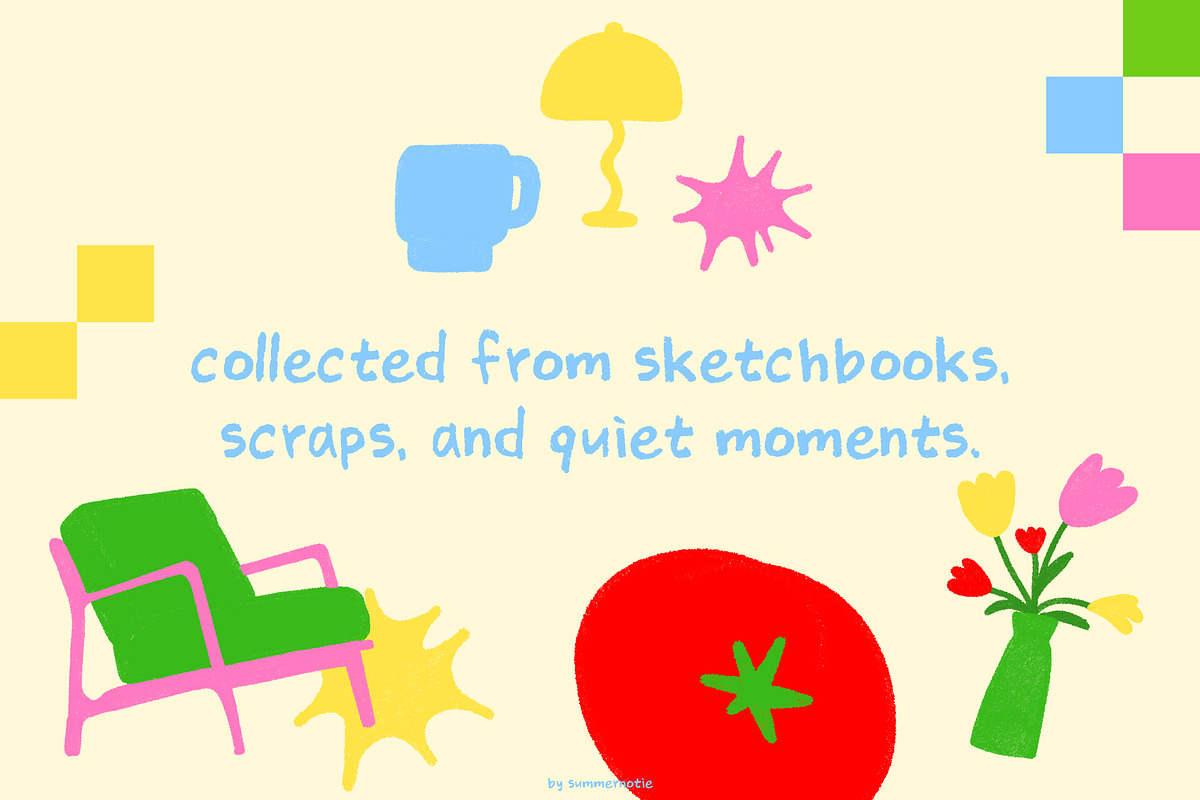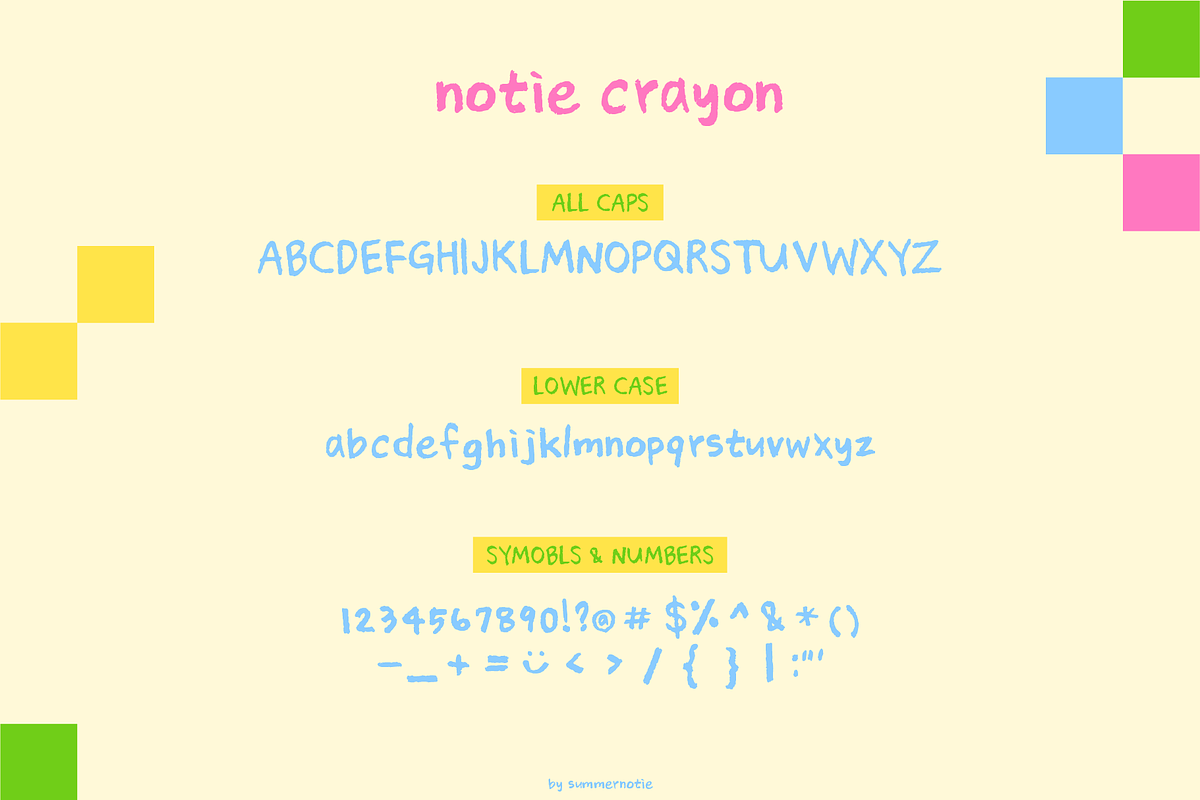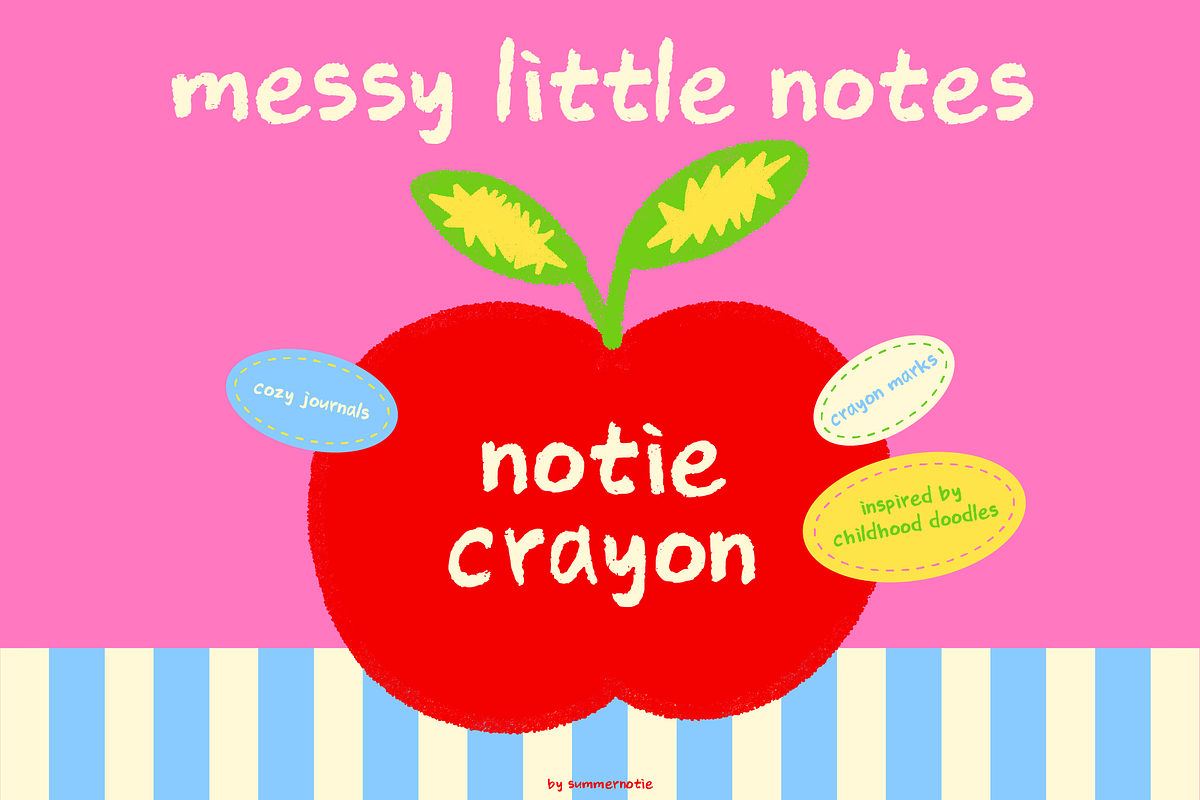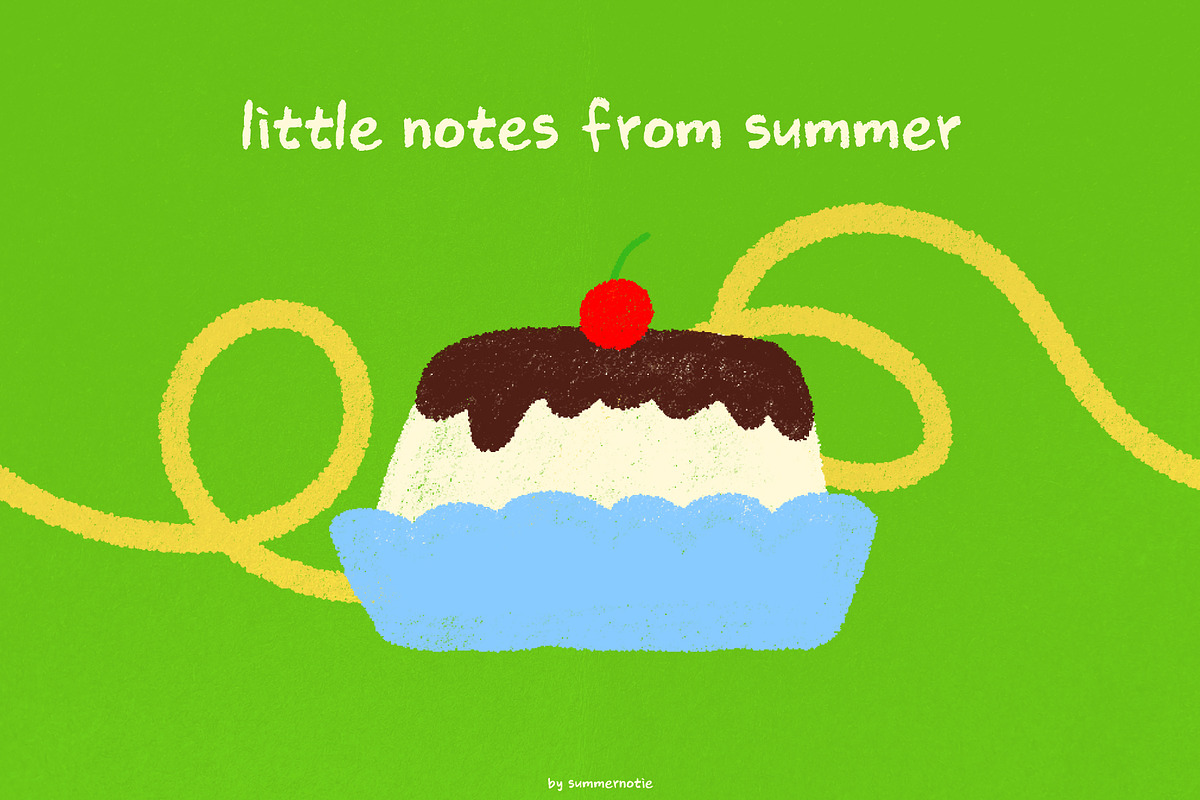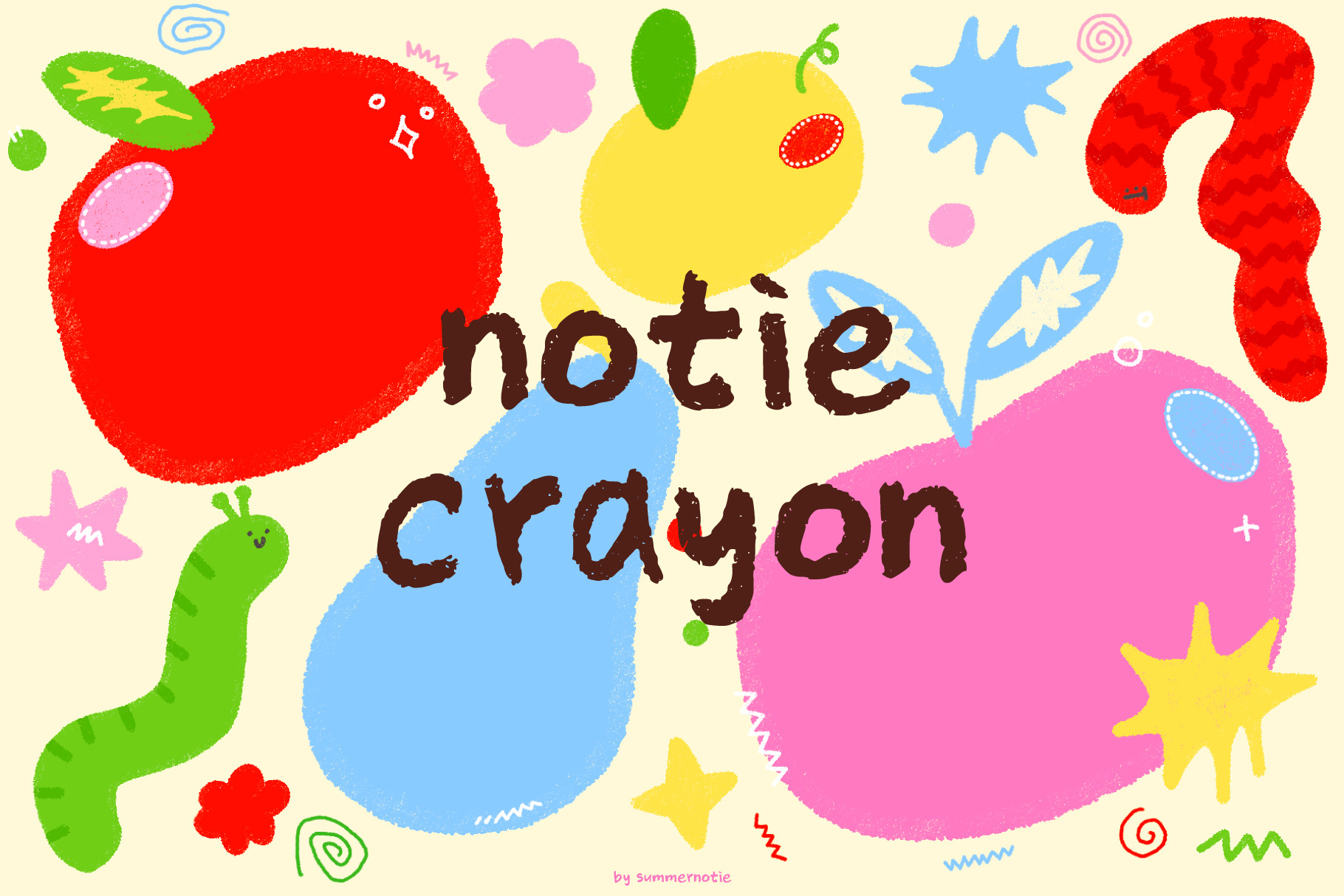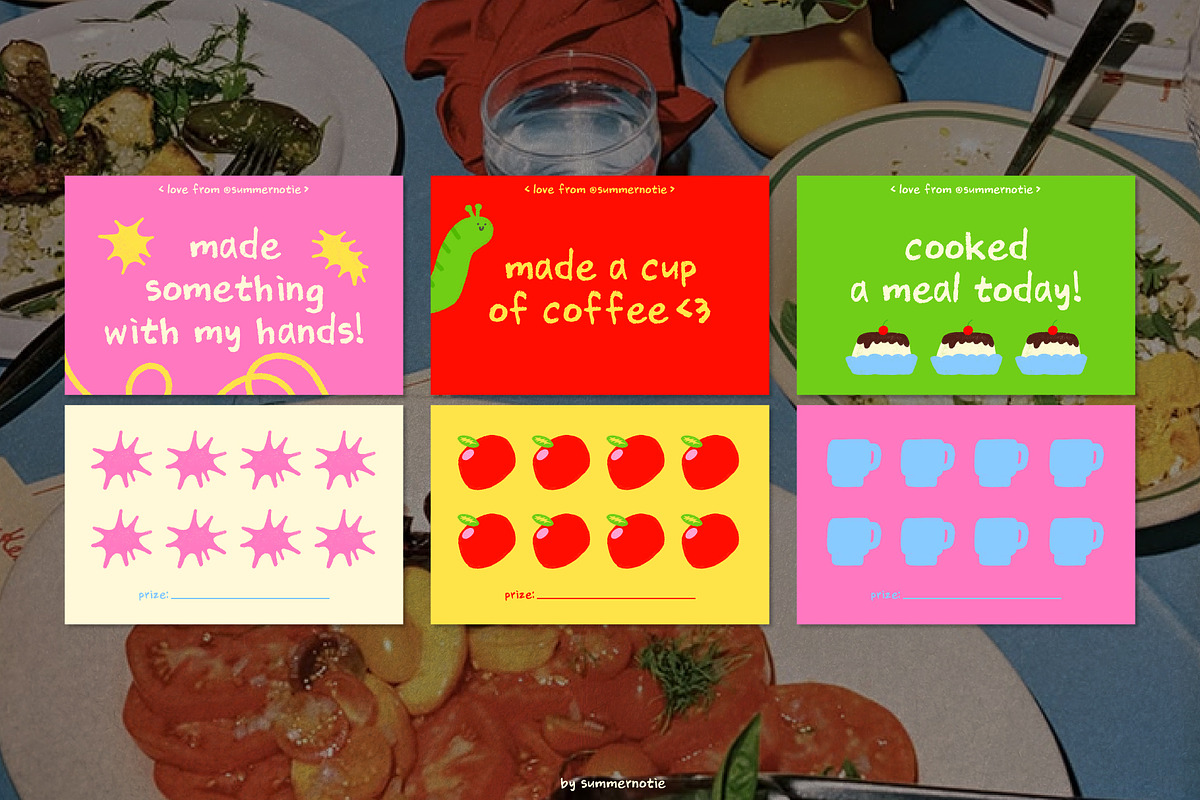
Notie Crayon Handwritten Font
Notie Crayon is a playful handwritten font with a subtle crayon texture and a soft, hand-drawn feel. Inspired by childhood sketchbooks, doodles, and little handwritten notes, it adds warmth and personality to any project.
Perfect for branding, packaging, posters, social media graphics, stationery, children's designs, classroom resources, invitations, greeting cards, and more. Whether you're creating a fun logo, scrapbook, sticker, or creative project, Notie Crayon brings an organic, handmade touch to your work.
Perfect for: • Branding & logos • Packaging & labels • Posters & flyers • Social media graphics • Greeting cards & invitations • Stickers & planners • Classroom resources • Scrapbooks & DIY projects